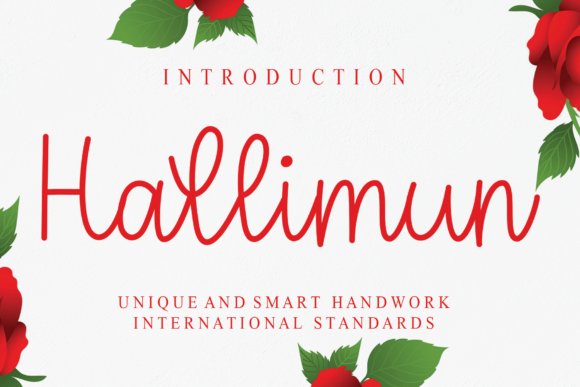
About Hallimun Font
Hallimun is a delightful and versatile handwritten font that exudes sweetness, elegance, and cleanliness. Its beautifully balanced characters make it a perfect fit for a wide range of design projects, allowing you to add a touch of charm and sophistication to your creative ideas.
With its clean and well-crafted letterforms, Hallimun brings a sense of clarity and readability to your designs. The smooth and flowing strokes create a harmonious and pleasing aesthetic, making it a joy to work with. Whether you’re designing logos, branding materials, invitations, or any other project, Hallimun will elevate your creations and bring them to life.
The versatility of Hallimun allows it to seamlessly adapt to various design styles and themes. Its elegant and clean appearance makes it suitable for both formal and informal designs. Whether you’re aiming for a minimalist and modern look or a romantic and whimsical atmosphere, Hallimun will effortlessly complement your vision.
The beauty of Hallimun lies in its ability to enhance the impact of your creative ideas. The font’s exquisite characters add a touch of refinement and sophistication to your designs, creating a visually appealing and memorable result. Its versatility extends to a wide range of applications, including logos, branding materials, social media posts, invitations, packaging, and much more.
When you incorporate Hallimun into your designs, you’ll notice how it elevates the overall aesthetic, making your creations stand out. The font’s elegance and clean design ensure that your message is conveyed with clarity and style, capturing the attention of your audience.
In conclusion, Hallimun is a sweet, elegant, and clean handwritten font that brings a sense of charm and sophistication to your designs. Its well-balanced characters and versatile nature make it suitable for a variety of creative projects. Embrace the beauty of Hallimun and watch as it transforms your ideas into visually stunning and captivating designs.